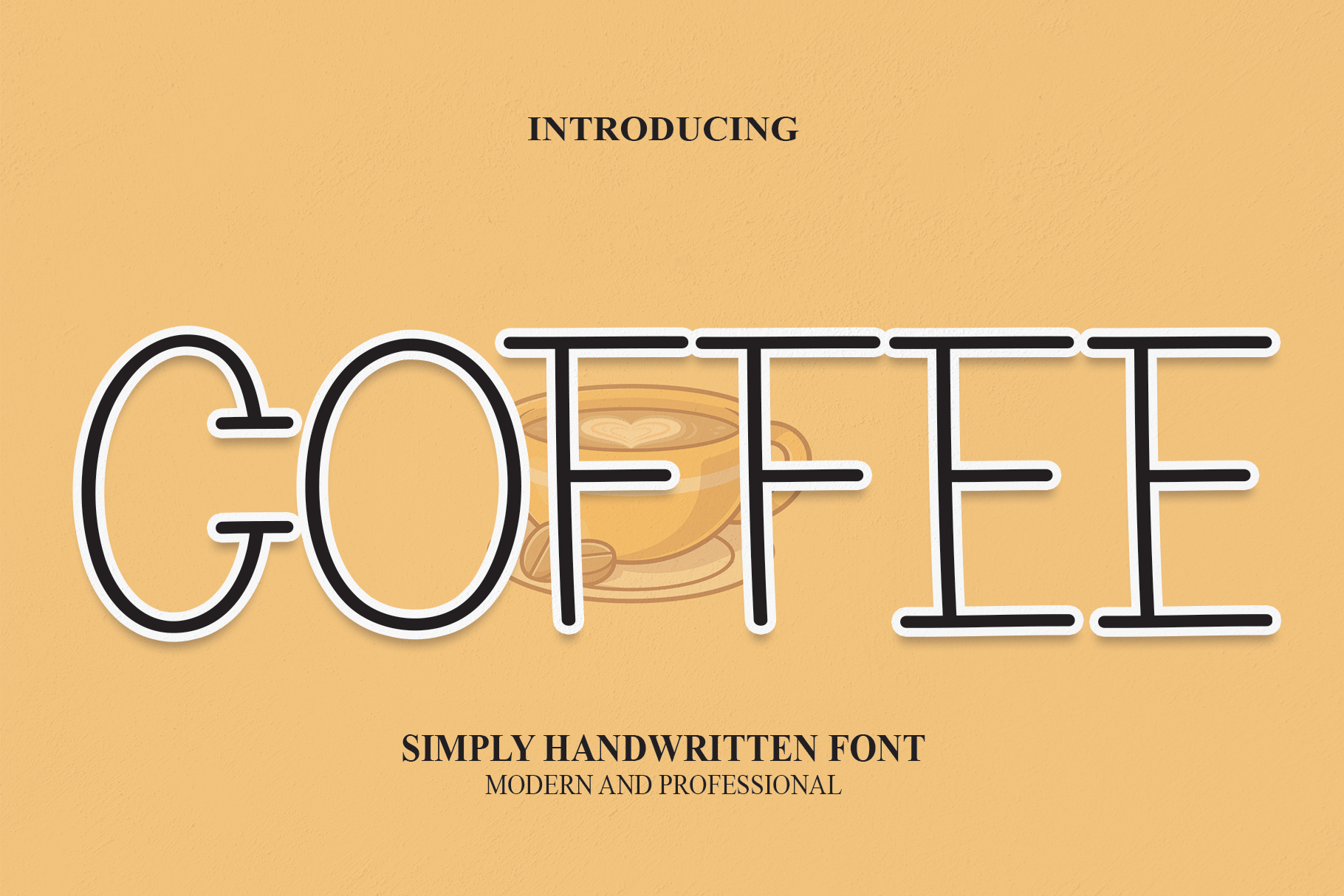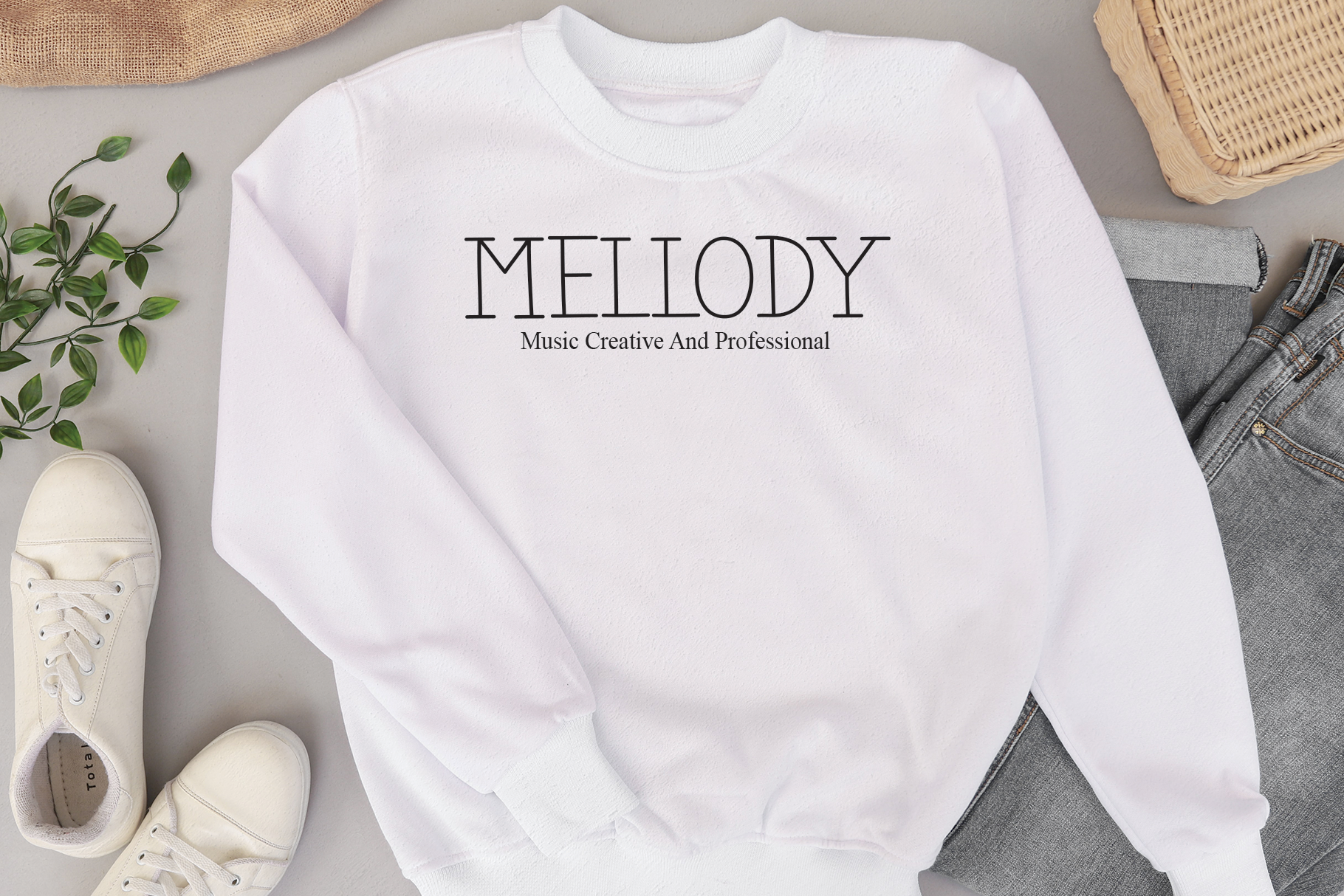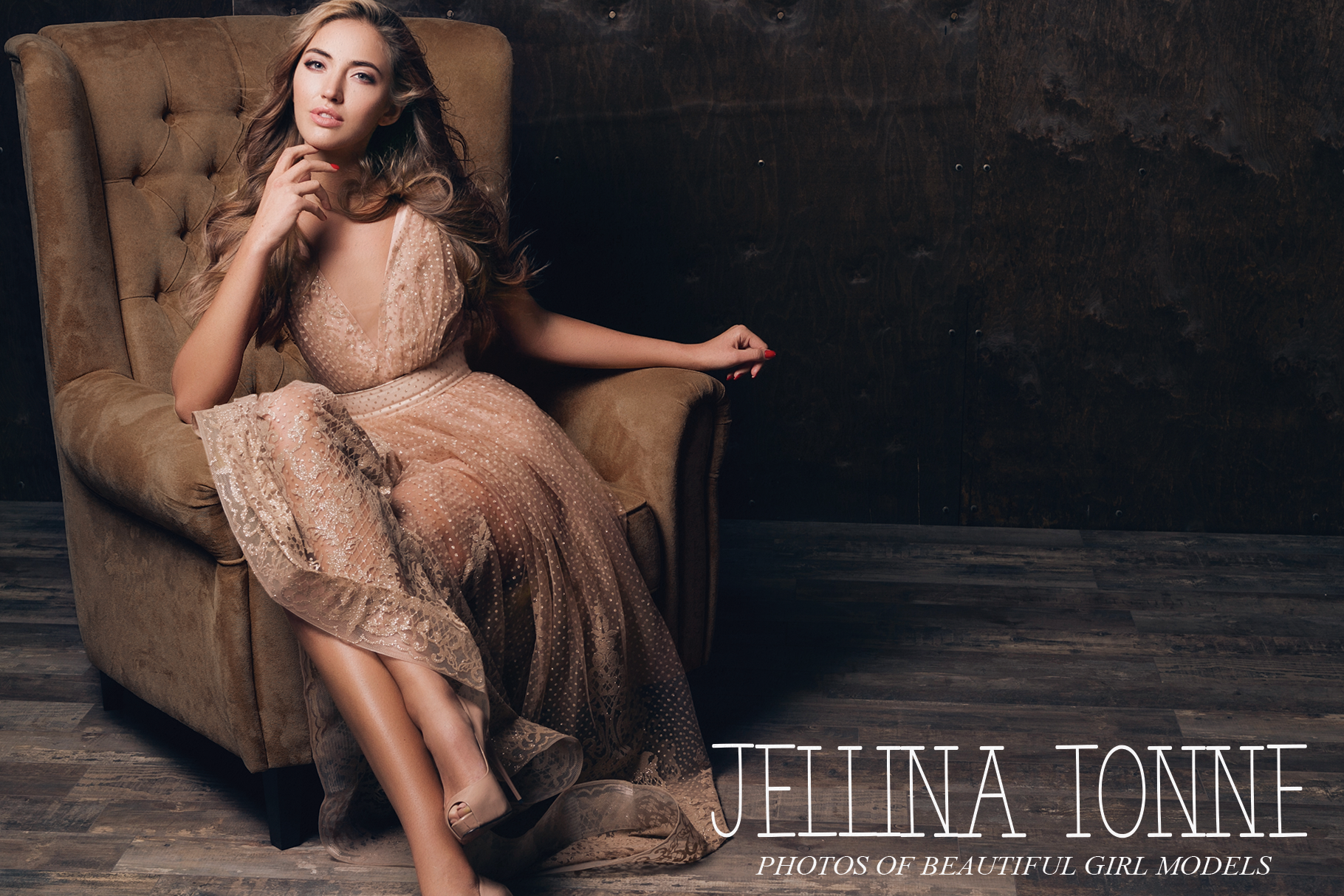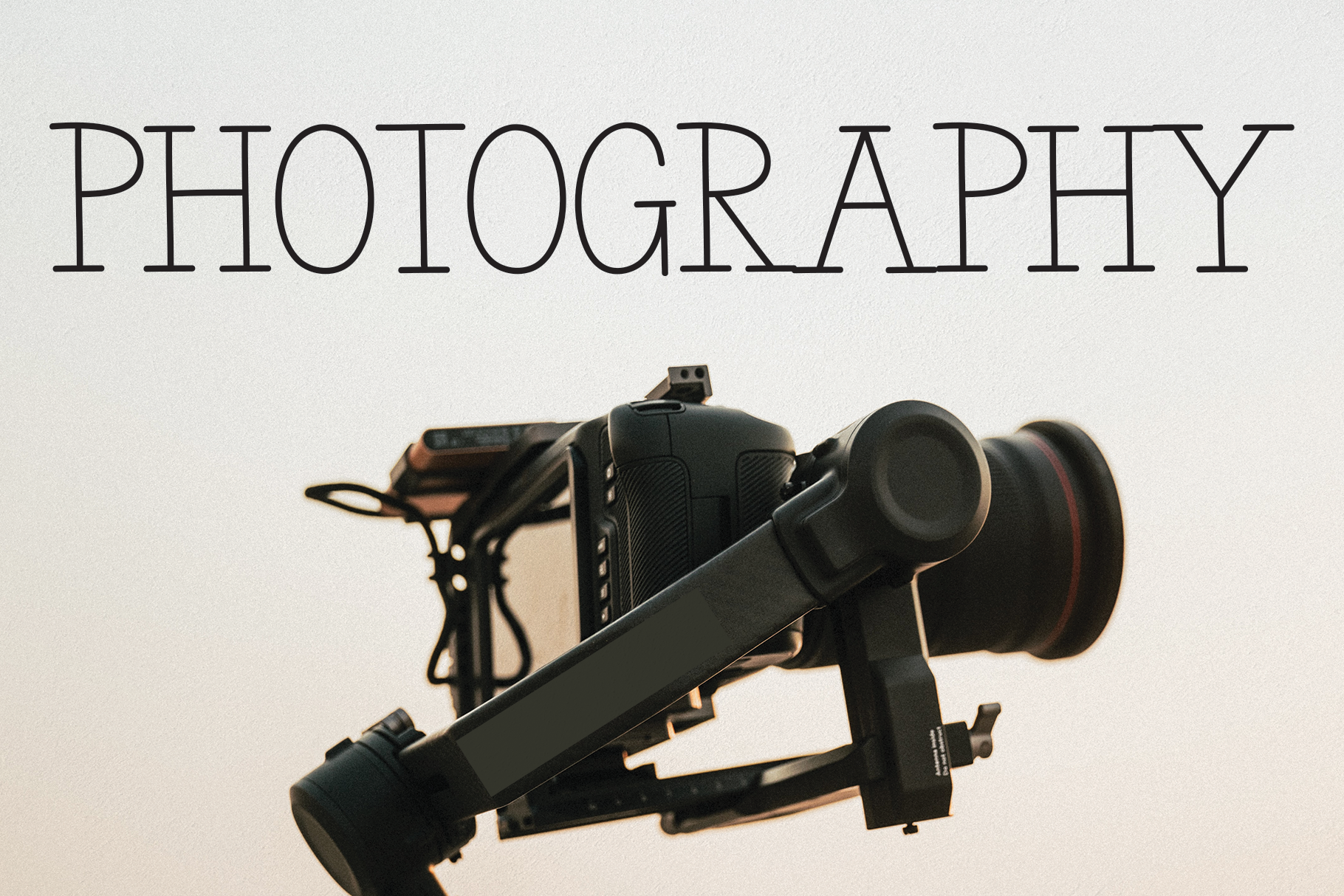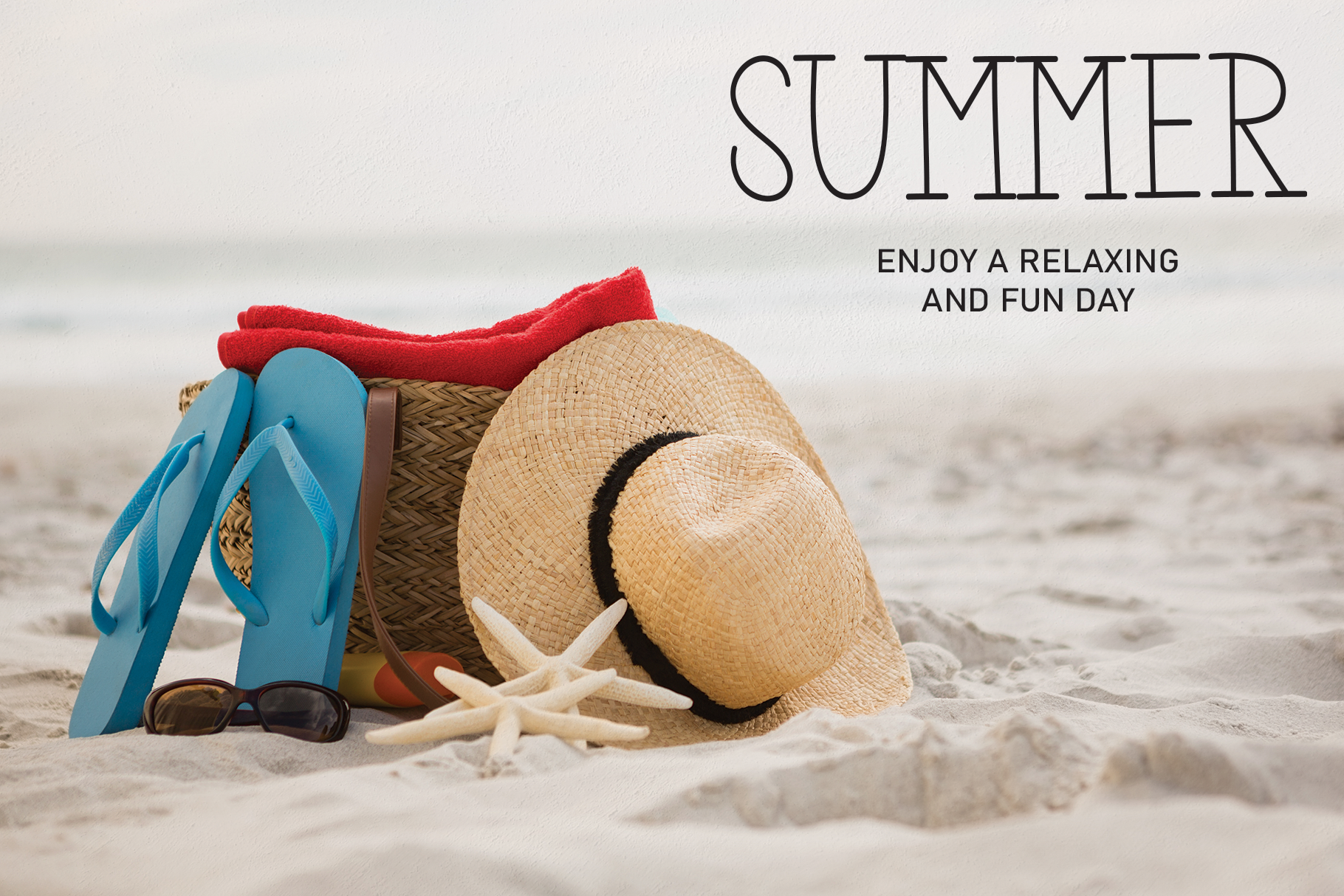
Coffee Display Font
This is a thin lettered, dainty and tall serif font. Whatever the topic, this font will be a wonderful asset to your font library, as it has the potential to enhance any creation.